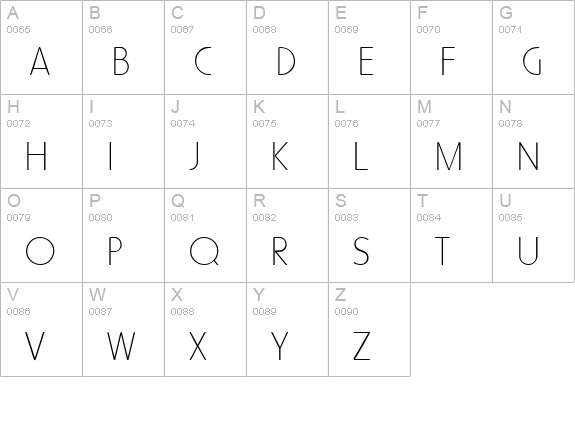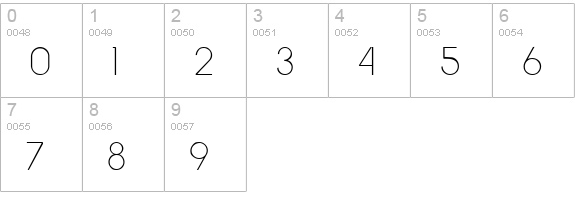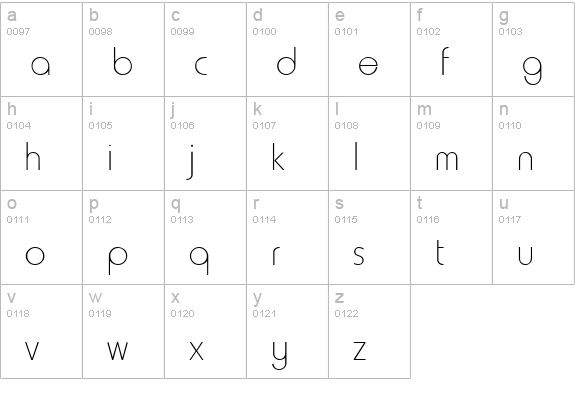
FFX Thin is a delicate, low-contrast variant in the FFX typeface family \xE2\x80\x94 well suited to fashion editorial, minimal branding, and high-contrast display.
FFX Thin font is a sleek and modern typeface that exudes sophistication and elegance. With its thin and delicate lines, this font is perfect for creating a refined and minimalist look in your designs. The clean and contemporary design of FFX Thin font makes it versatile and suitable for various projects, from branding to editorial design. Best of all, FFX Thin font is available for free download at FontsMarket.com. Whether you're a graphic designer looking to add a touch of sophistication to your projects or a business owner wanting to create a polished and professional image, FFX Thin font is the perfect choice. Download it now and elevate your designs with this stylish and elegant typeface.